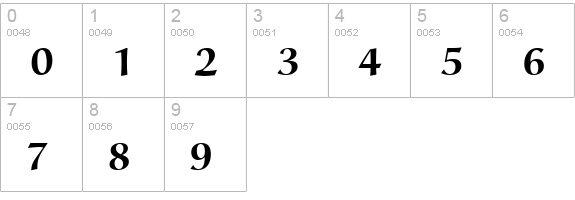
URWAlcuinT Bold Font Details
URWAlcuinT Bold is a strong, high-contrast variant in the URWAlcuinT typeface family \xE2\x80\x94 well suited to headlines, attention-grabbing titles, and strong calls-to-action.
URWAlcuinT Bold is a remarkable font that exudes elegance and sophistication. With its bold lines and strong presence, it commands attention and makes a lasting impression. This font is perfect for headlines, titles, and any design that requires a touch of grandeur. URWAlcuinT Bold combines classic design elements with a modern twist, creating a unique and versatile typeface. Its clean and crisp letterforms ensure readability, making it suitable for both print and digital media. One of the best things about URWAlcuinT Bold is that it is free. Yes, you read that right - this magnificent font is freely available to download at FontsMarket.com. Whether you are a professional designer or a hobbyist looking to add a touch of sophistication to your projects, URWAlcuinT Bold is the perfect choice. So why wait? Head over to FontsMarket.com and download URWAlcuinT Bold today. Let your creativity soar as you explore the endless possibilities this font offers. Whether you're designing a logo, creating a poster, or crafting a beautiful invitation, URWAlcuinT Bold will elevate your work to new heights. Embrace the elegance and enjoy the freedom that this font brings to your designs.